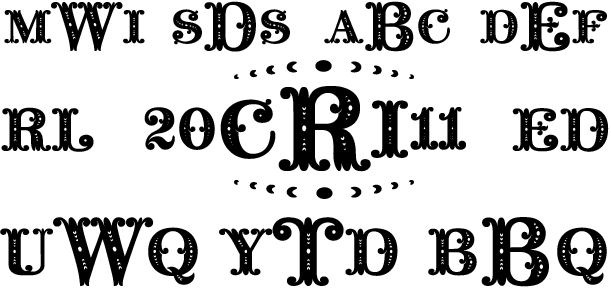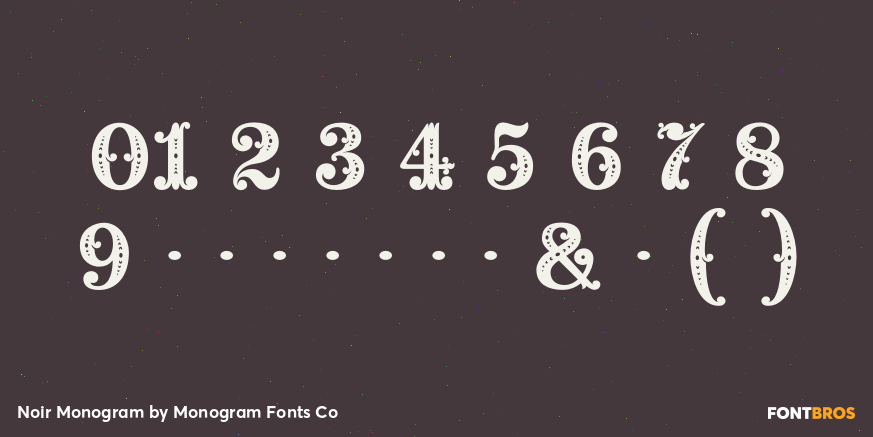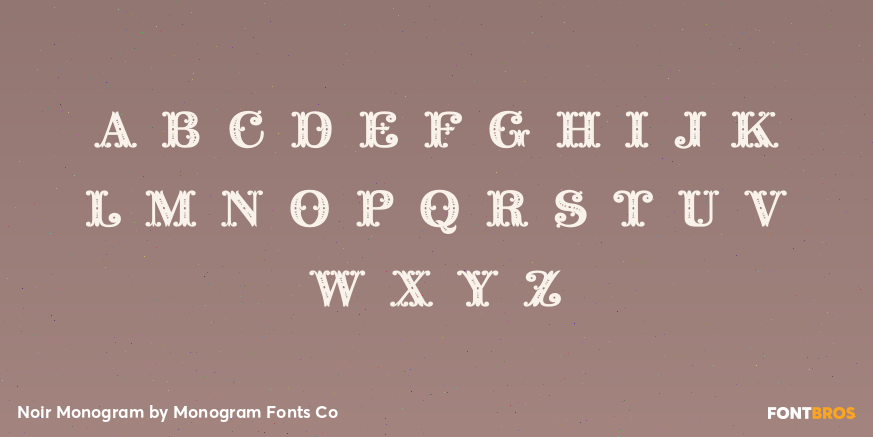
Noir Monogram
The inspiration source for Noir Monogram is the "Pearl" letterset from the 1854 "Becker's Ornamental Penmanship and Draughtsman's Letter Book" by George J. Becker. The original design was a highly ornate steelplate engraving which was simplified to a solid letterstyle with minimal detailings.
Noir Monogram is capable of several traditional monogram forms with unique detailing features utilizing Ligature & Stylistic Alternates features.